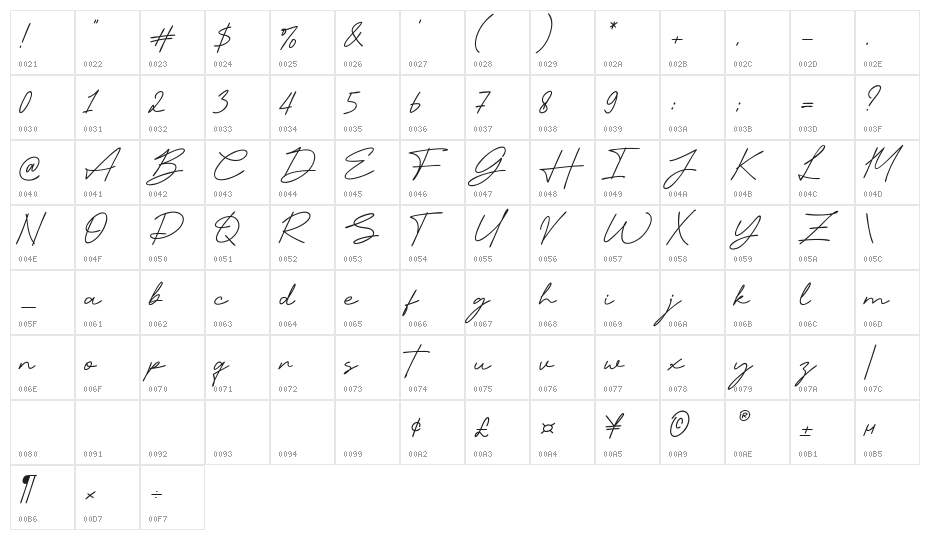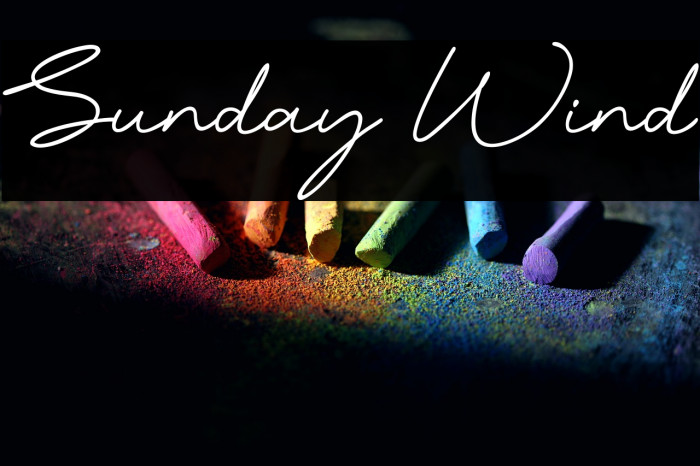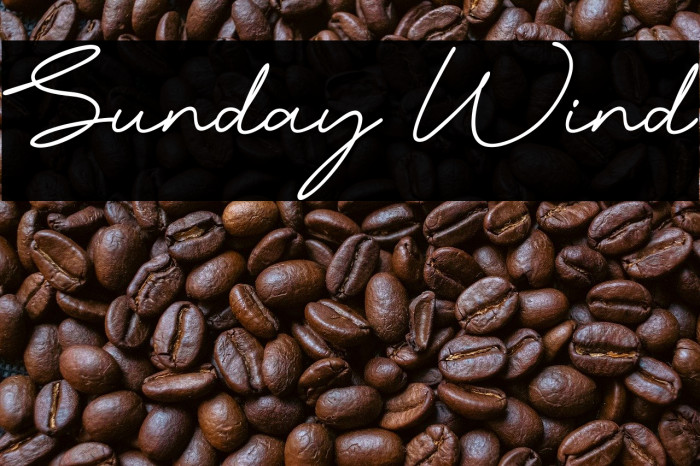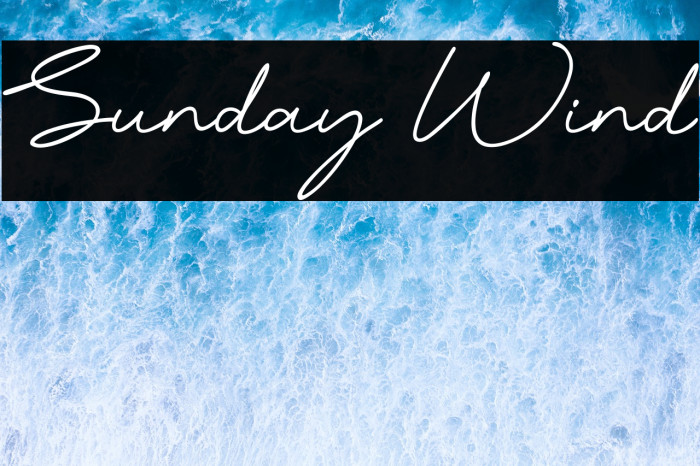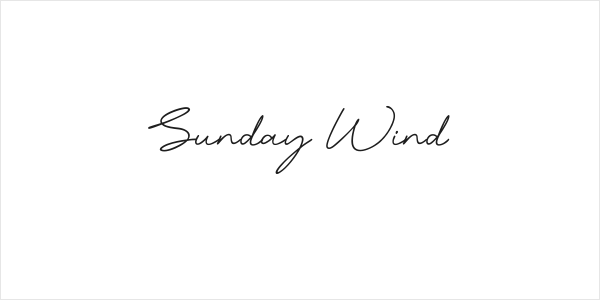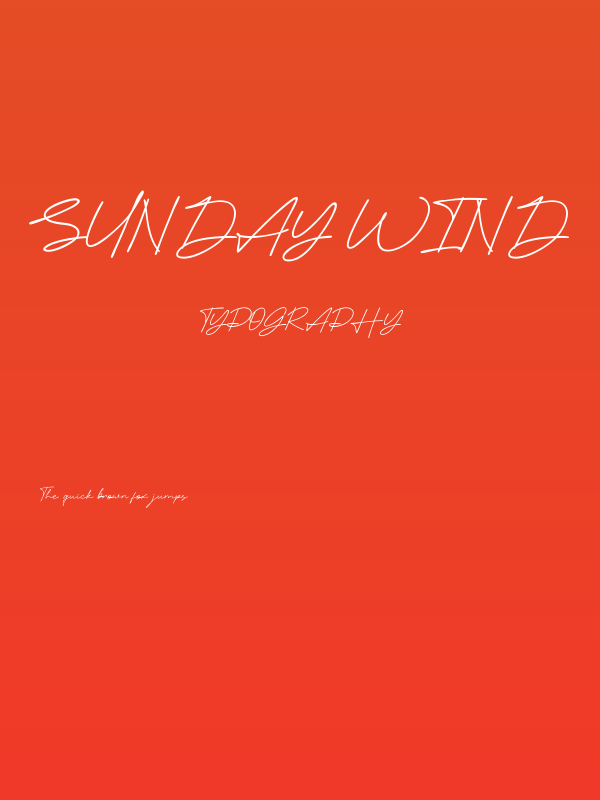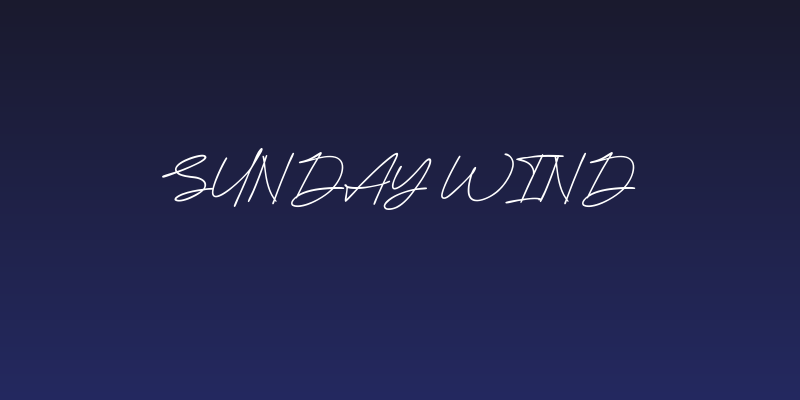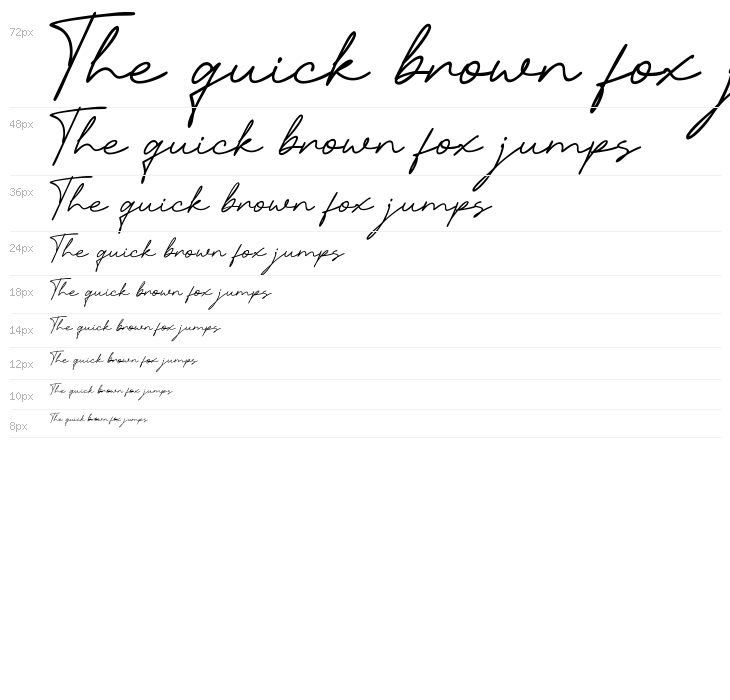
Sunday Wind Font
Sunday Wind Description
This font exudes a casual and flowing handwritten style, characterized by its elegant and fluid strokes. The uppercase letters are slightly slanted, giving a dynamic and lively appearance, while the lowercase letters maintain a consistent and smooth flow. The numerals and special characters complement the overall aesthetic with their cohesive design. The font's natural and personal touch makes it ideal for projects that require a humanistic and approachable feel.
| Overall Style | Casual, Elegant |
| Use Case | Logos, Invitations, Greeting Cards |
| Proposed Projects | Ideal for personal branding, invitations, greeting cards, and creative projects that require a personal touch. |